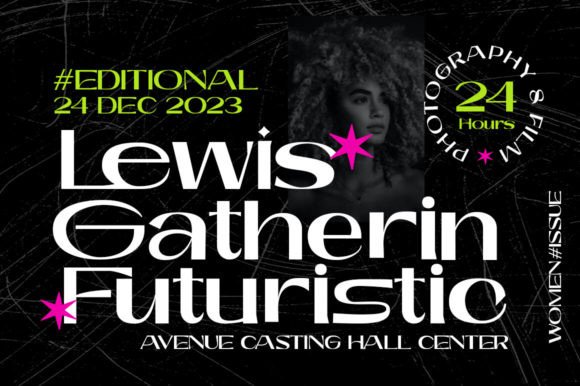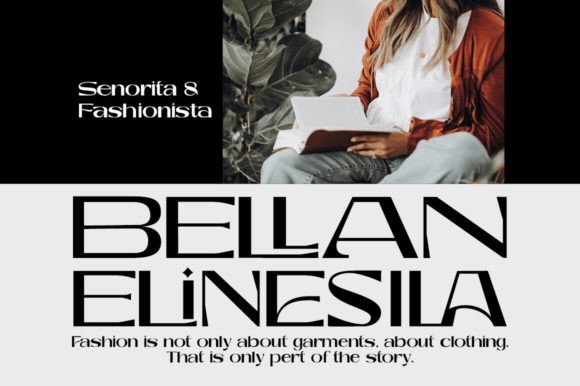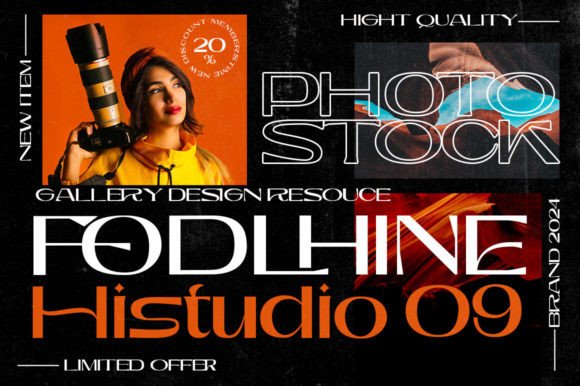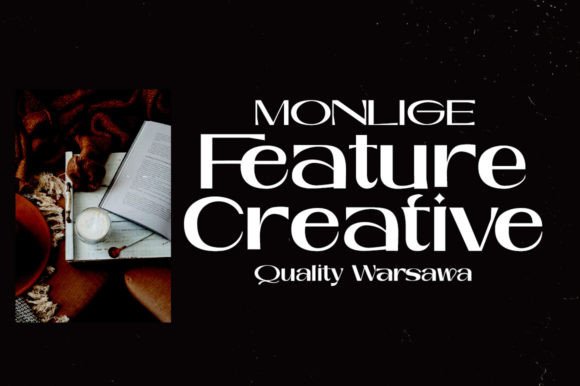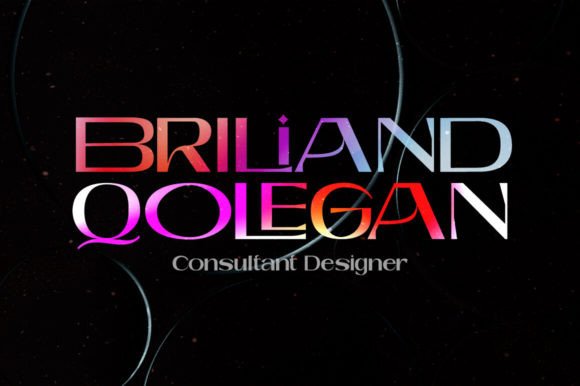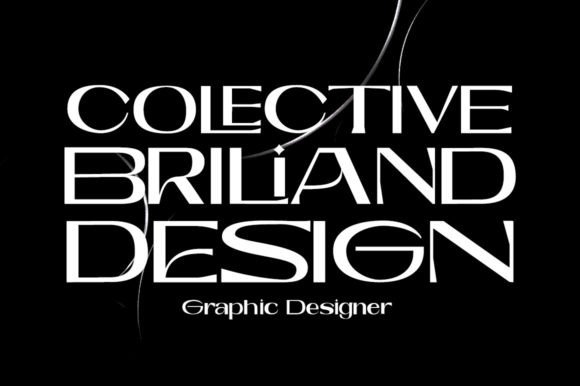
The Art of Typography: Unveiling the Elegance of Berlin Caligram Font
As a designer, there’s nothing quite like the thrill of finding the perfect font to bring your creative vision to life. It’s that moment when everything clicks, and the words seem to dance across the page in perfect harmony. For me, that moment often starts with a font that’s both elegant and understated – a font that doesn’t scream for attention, but rather whispers its beauty to the viewer.
That’s where the Berlin Caligram Font comes in – a delicate, classy sans serif font designed to enhance the beauty of your projects. With its balanced and varied strokes, it’s the perfect choice for designers looking to add a touch of sophistication to their work. Whether you’re working on a branding project, a website, or a print campaign, the Berlin Caligram Font is a valuable addition to your toolkit.
Berlin Caligram Font Key Features
- Unique Characteristics: Berlin Caligram Font features a distinctive, modern design with geometric shapes and clean lines, inspired by the city of Berlin’s architectural style.
- Script and Language Support: The font includes support for Latin and Cyrillic scripts, covering a wide range of languages, including English, German, Russian, and many others.
- Kerning and Ligatures: Berlin Caligram Font includes advanced kerning and ligature features, ensuring smooth text rendering and professional-looking typography.
- Font Weight and Style: The font is available in a single weight, with a modern and elegant style that is perfect for use in logos, headings, and body text.
Designer Review: Berlin Caligram Font
First off, I’d like to say that I’m really enjoying the unique aesthetic of the Berlin Caligram Font. ✨ The way the letters seem to dance across the page, with their distinctive rounded edges and elegant flair, is truly captivating. ✨ The font’s organic feel is reminiscent of hand-drawn lettering, which adds a touch of personality to any design project.
One of the standout features of this font is its versatility. ✨ It works equally well for headings and body text, and its varied line weights make it easy to create a visual hierarchy in your design. I’ve also been impressed with the font’s legibility, even at smaller sizes. ✨ Whether you’re designing a brochure, a website, or a social media campaign, the Berlin Caligram Font is a great choice.
- ⚠️ The font may not be suitable for extremely formal or traditional designs, as its organic feel may clash with more conservative aesthetics.
- ⚠️ The font’s varied line weights can make it challenging to achieve a consistent visual style across different elements of your design.
Overall, I’d give the Berlin Caligram Font 4.5 out of 5 stars. It’s a beautiful, versatile font that’s sure to add some visual interest to your designs. However, its limitations should be carefully considered before making it the centerpiece of your project.
The Berlin Caligram font is ideal for:
- Creating modern and minimalist designs.
- Adding a touch of elegance to your typography.
- Designing invitations, menus, and other printed materials.
Alternatives to Berlin Caligram Font
Great Vibes is a modern calligraphy font that offers a unique, hand-drawn feel. It’s ideal for designers who want to add a touch of elegance and sophistication to their designs. Great Vibes is more cursive than Berlin Caligram Font, making it suitable for titles and headings.
Comparison: Great Vibes is more ornate and flowing, while Berlin Caligram Font has a more geometric feel.
Pacifico is a beautiful, elegant script font that’s perfect for designers who want to create a relaxed, beachy vibe. It’s a great choice for headings, titles, and body text. Pacifico has a more refined and sophisticated feel compared to Berlin Caligram Font.